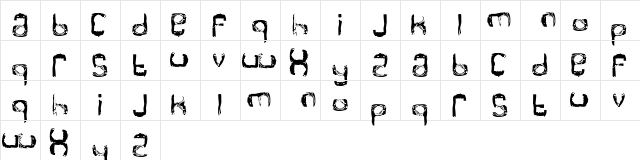
RINGPULL 1
Design Context for RINGPULL Typeface
RINGPULL is a composed and adaptable typeface that performs quietly and consistently across a wide range of design contexts.